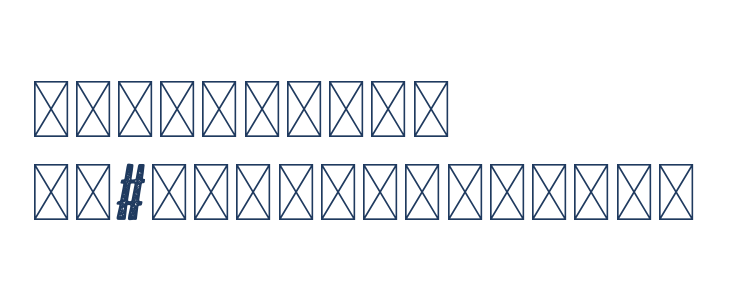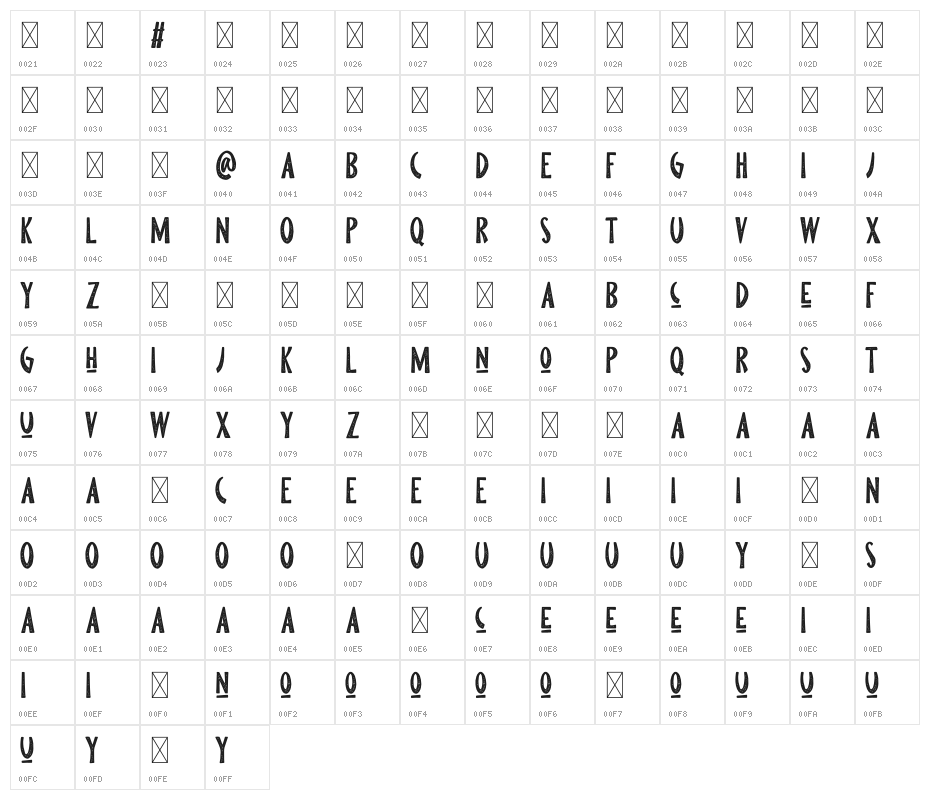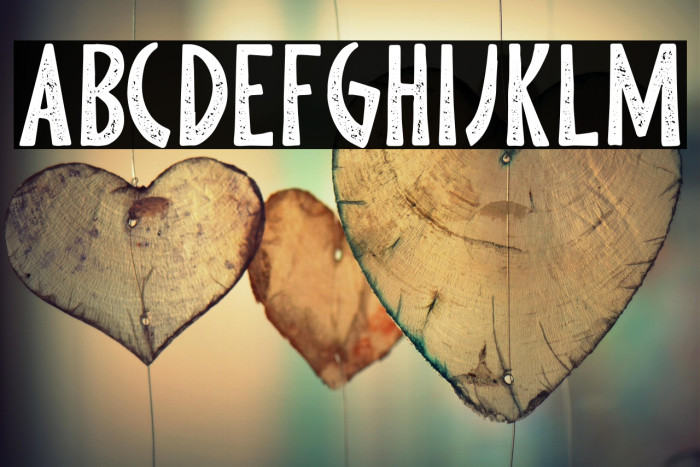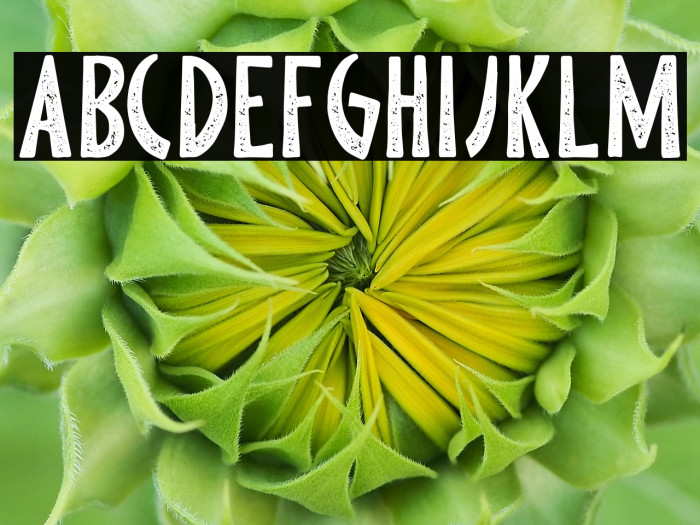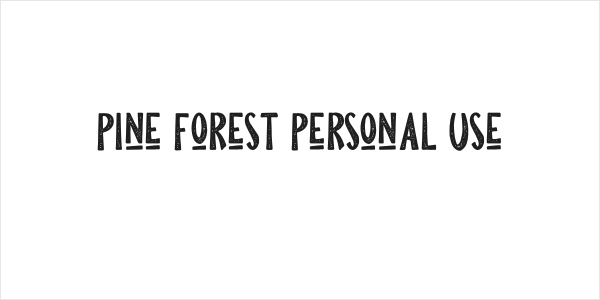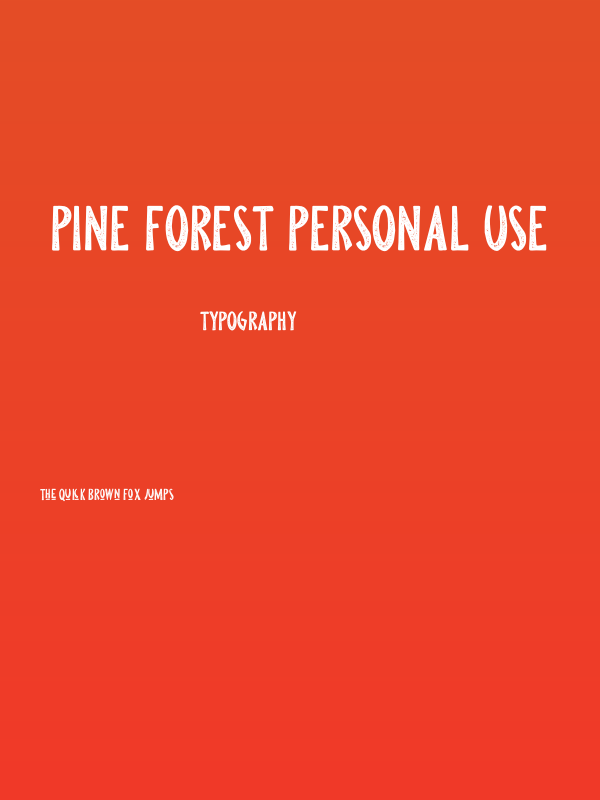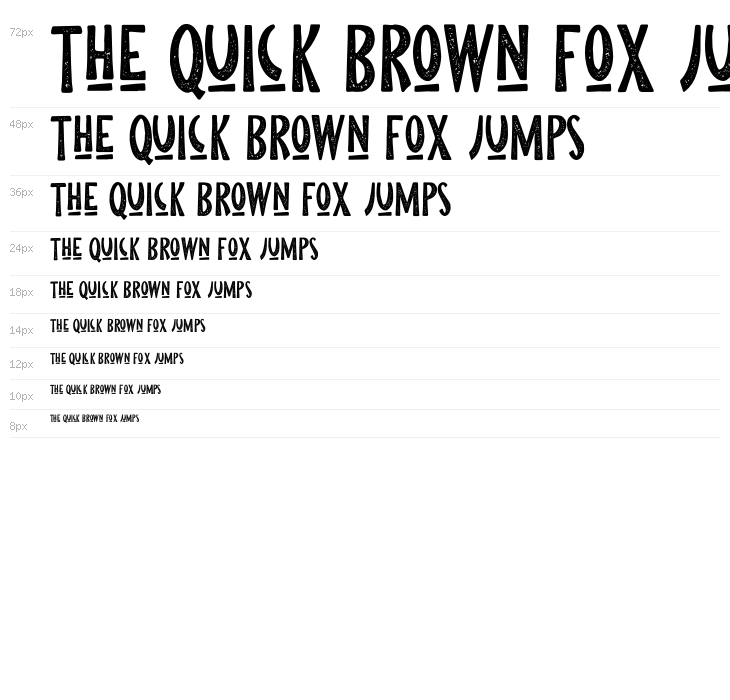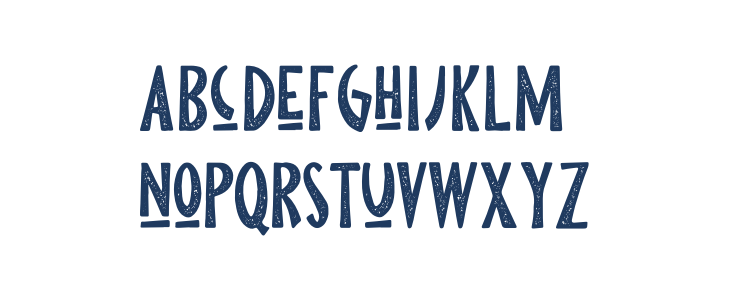
Pine Forest Personal Use Font
Pine Forest Personal Use Description
This font features a bold, hand-drawn style with a textured, slightly distressed appearance. The uppercase letters are tall and narrow, with a playful, uneven baseline that adds a whimsical touch. The strokes are thick and consistent, giving the font a strong presence. The lack of lowercase letters and numbers suggests a focus on decorative use. The texture within each letter adds a rustic, organic feel, reminiscent of natural elements or handcrafted signage. This font is ideal for projects that require a bold, eye-catching statement with a touch of personality.